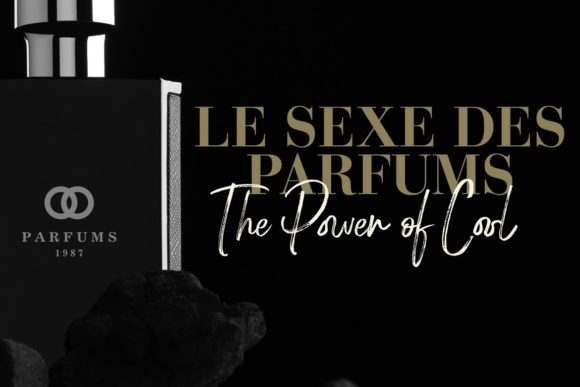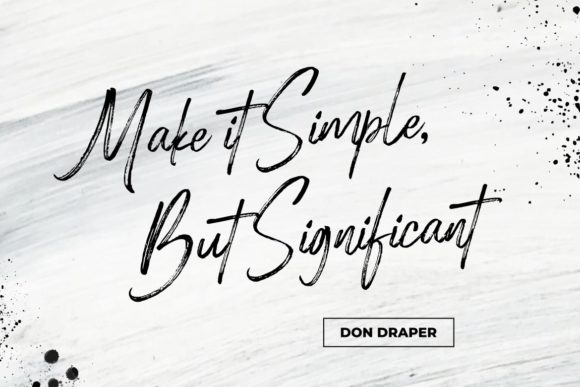
Holingston Font
db-ku.com - Script & Handwritten -- Holingston is a trendy brushed handwritten font. It is the best choice for creating eye catching logos, branding and quotes. Every letter has a unique and beautiful touch, which will make your design come alive!